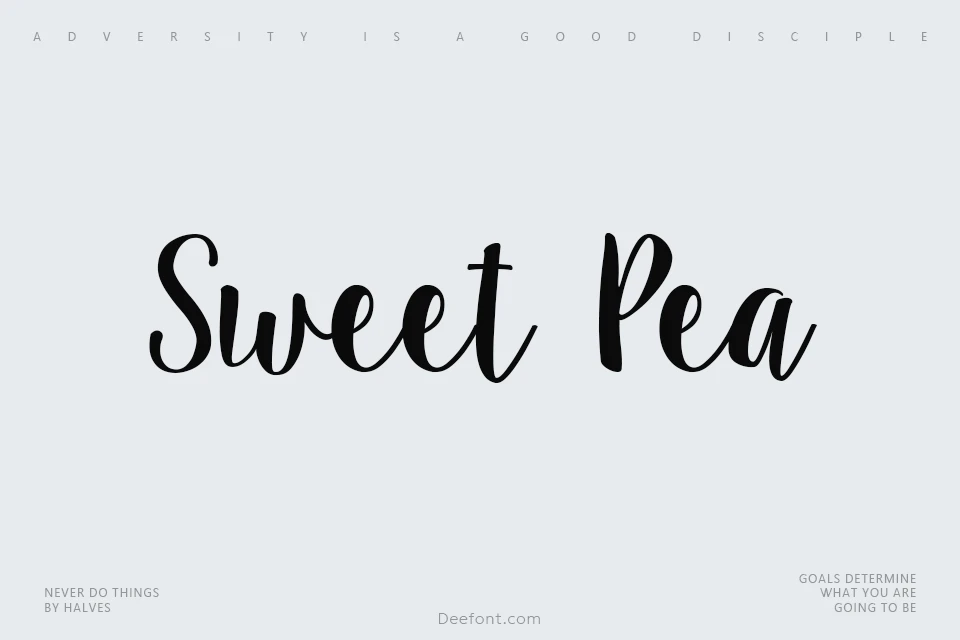
Sweet Pea Font
Sweet Pea Font is a charming script typeface created by Emily Spadoni in 2015. This playful and whimsical typeface features flowing, cursive letters that convey elegance and personality. The font is characterized by its smooth, continuous strokes with uppercase letters that are bold and slightly slanted, while lowercase letters maintain a consistent flow with rounded edges and a subtle bounce. The numerals are clear and readable, complementing the overall aesthetic. With 186 glyphs and support for 34 languages, Sweet Pea is particularly well-suited for wedding invitations, greeting cards, branding materials, and playful logos where a touch of personality and flair is desired.
Designed by:Emily Spadoni